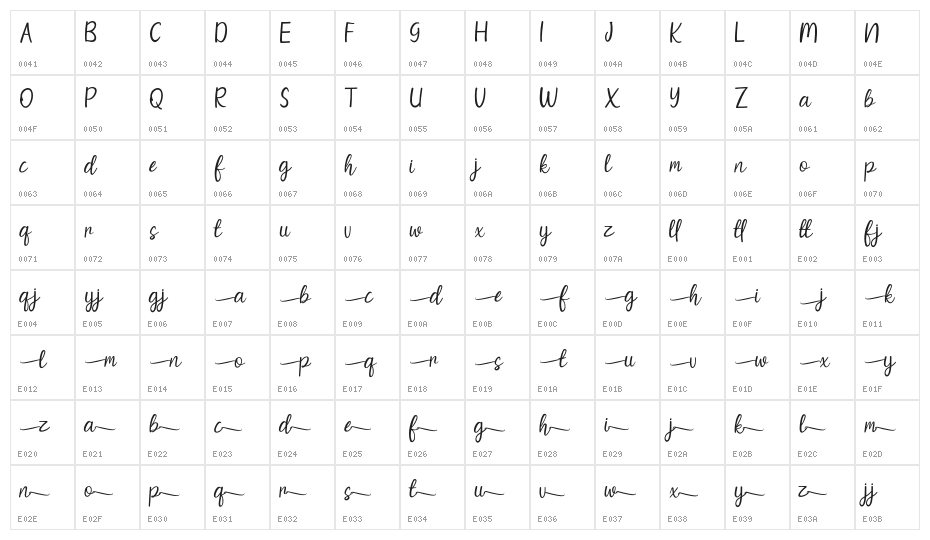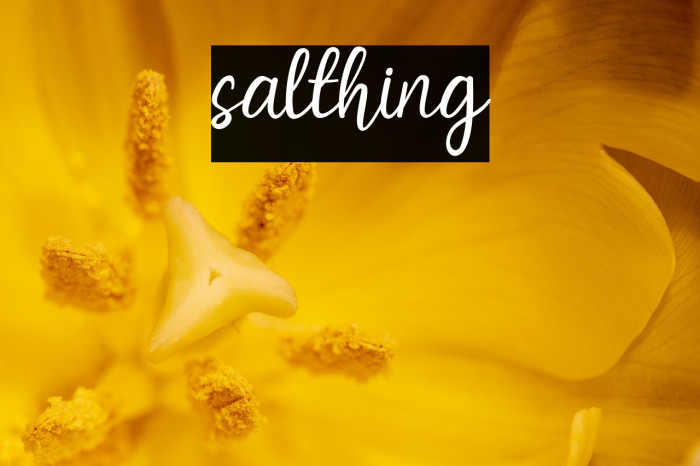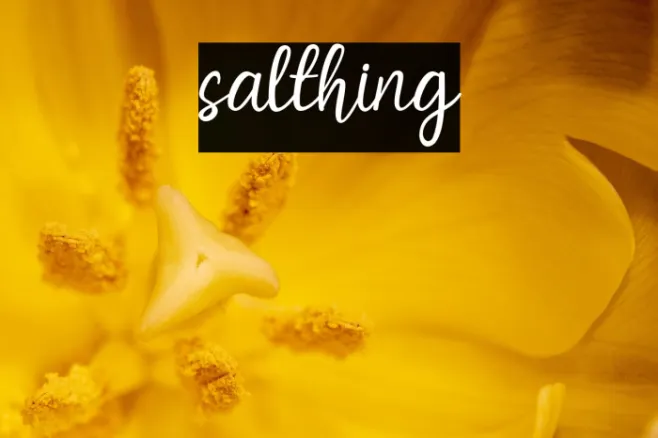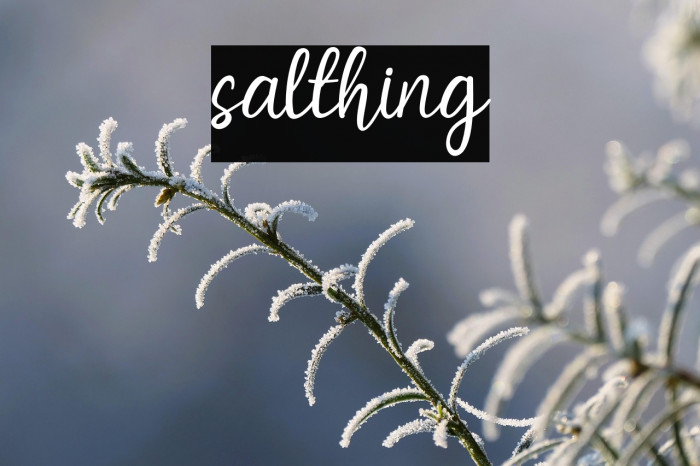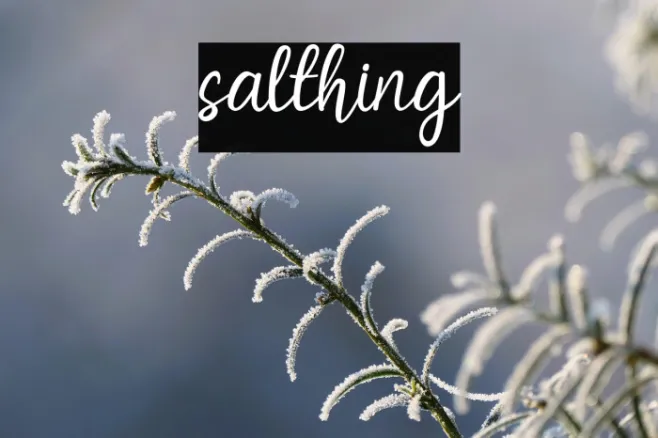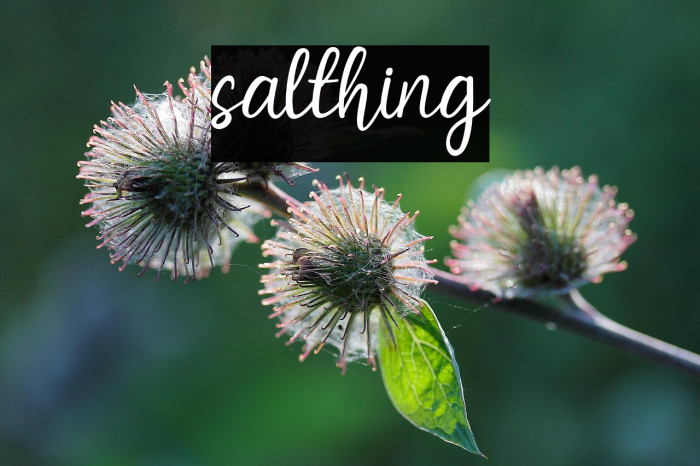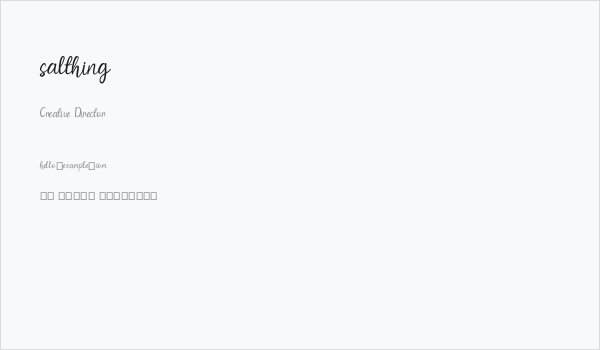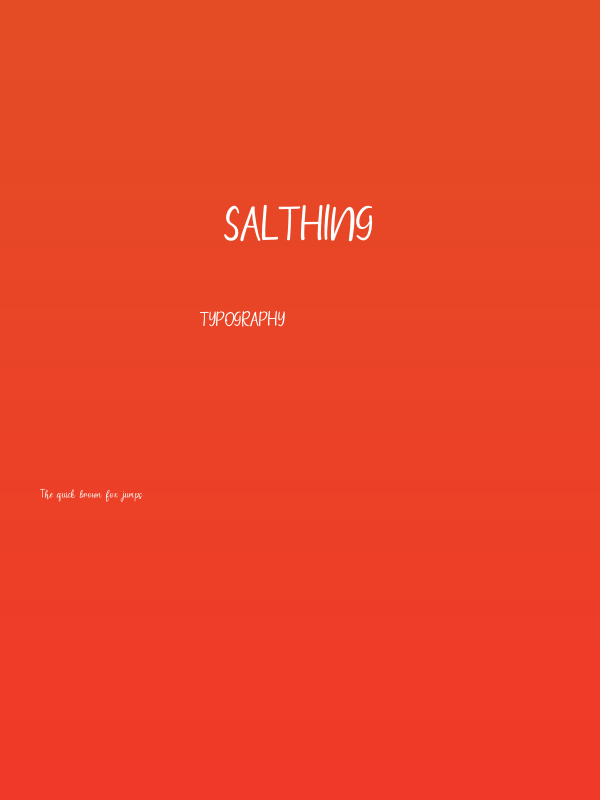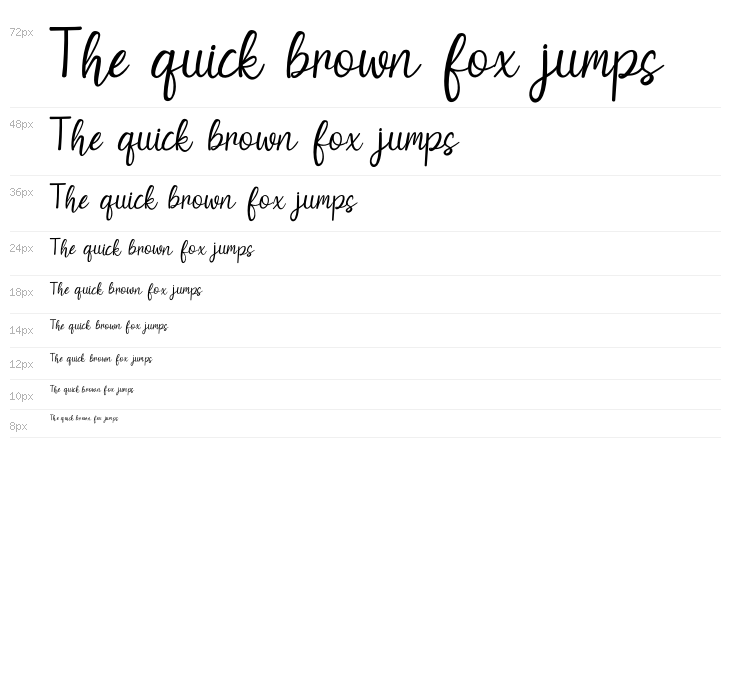
salthing Font
salthing Description
This font features a playful and casual script style, characterized by its smooth, flowing lines and slightly slanted orientation. The uppercase letters are bold and rounded, giving a friendly and approachable feel. The lowercase letters maintain a consistent flow, with some letters extending slightly below the baseline, adding to its handwritten charm. The overall appearance is informal yet legible, making it suitable for a variety of creative projects. The font does not include numbers or special characters, focusing solely on alphabetic characters.
| Proposed Projects | Ideal for greeting cards, invitations, personal branding, and social media graphics. |